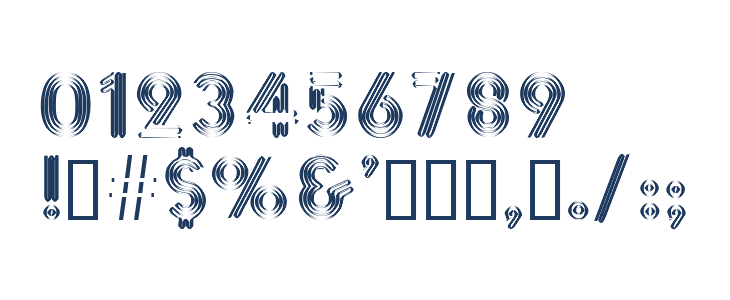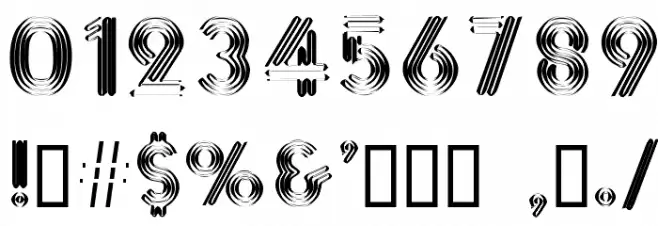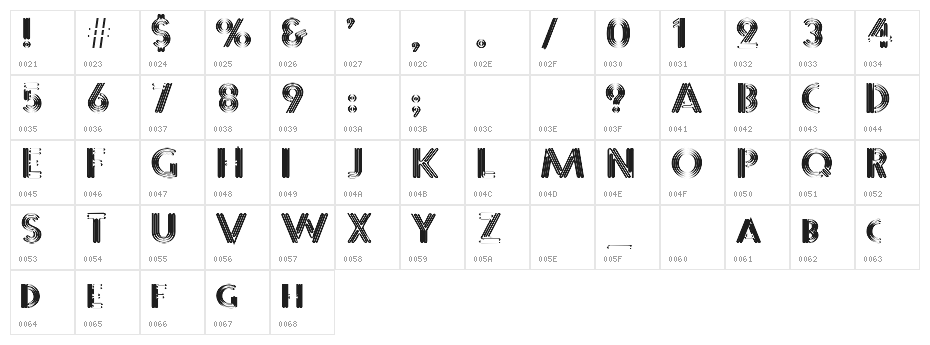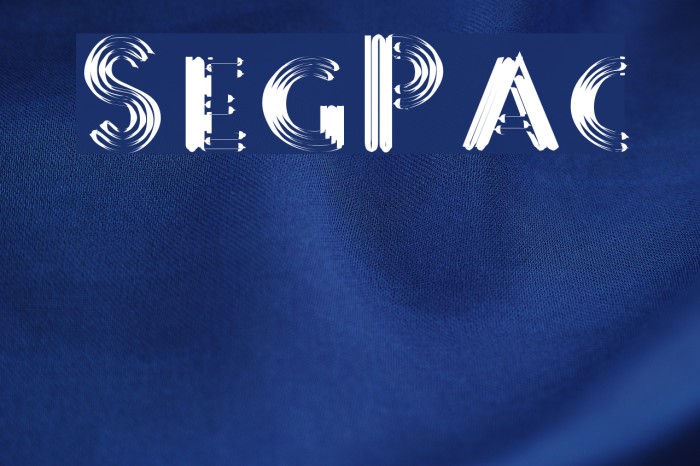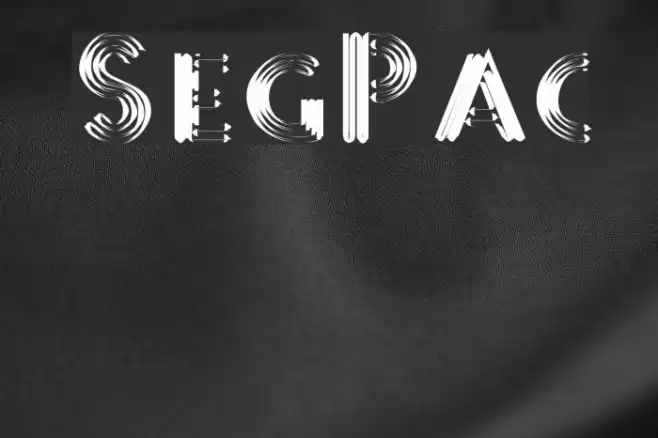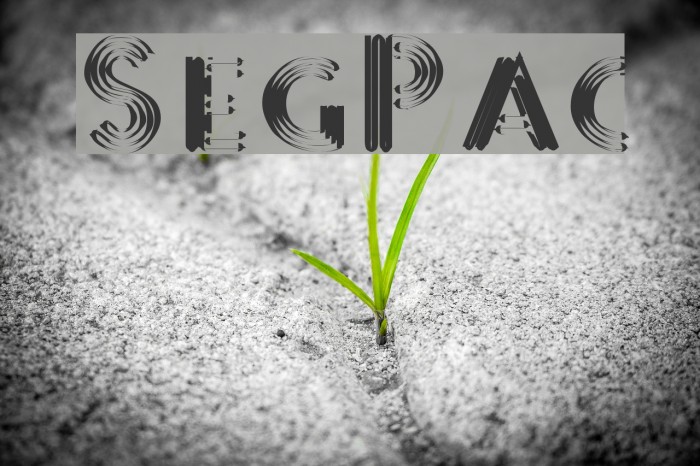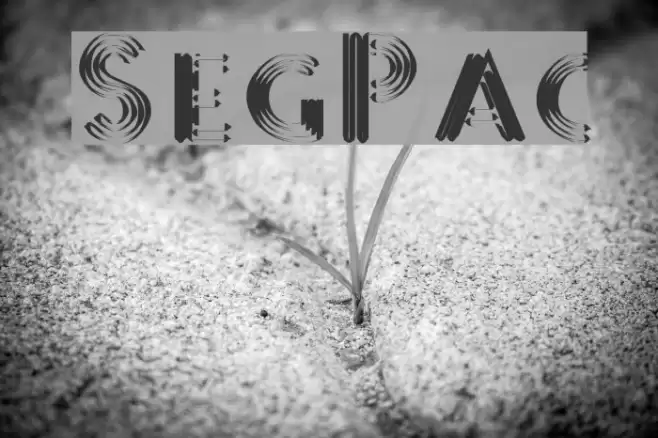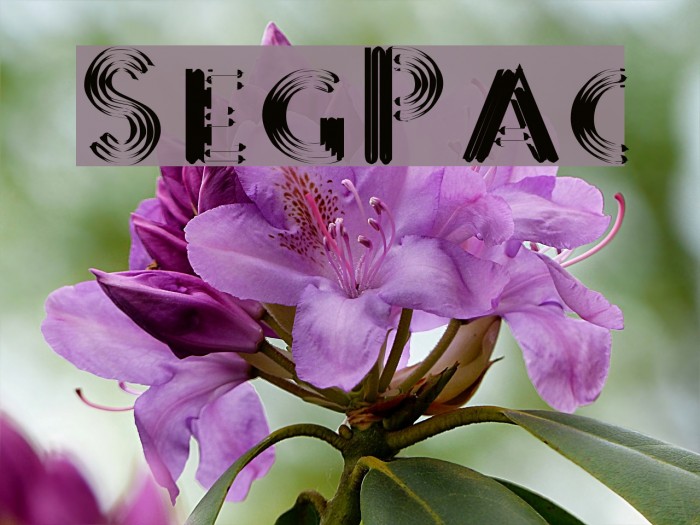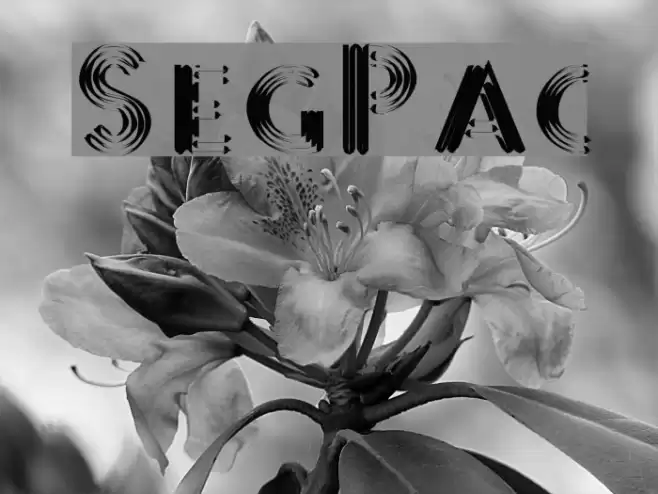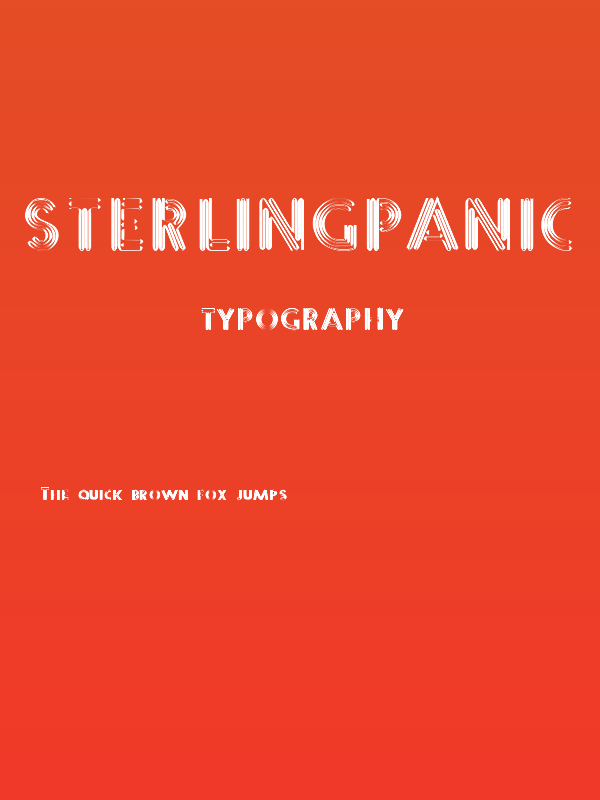
SterlingPanic Font
SterlingPanic Description
This font features a bold and dynamic design with a distinct layered effect, creating a sense of depth and movement. The characters are constructed with multiple parallel lines, giving them a unique, almost three-dimensional appearance. This style is both eye-catching and modern, making it suitable for attention-grabbing headlines or artistic projects. The uppercase and lowercase letters maintain a consistent style, while the numbers and special characters complement the overall aesthetic. The font's boldness and intricate detailing make it stand out, ideal for projects that require a strong visual impact.
| Proposed Projects | Ideal for posters, album covers, branding, and any project needing a striking visual element. |